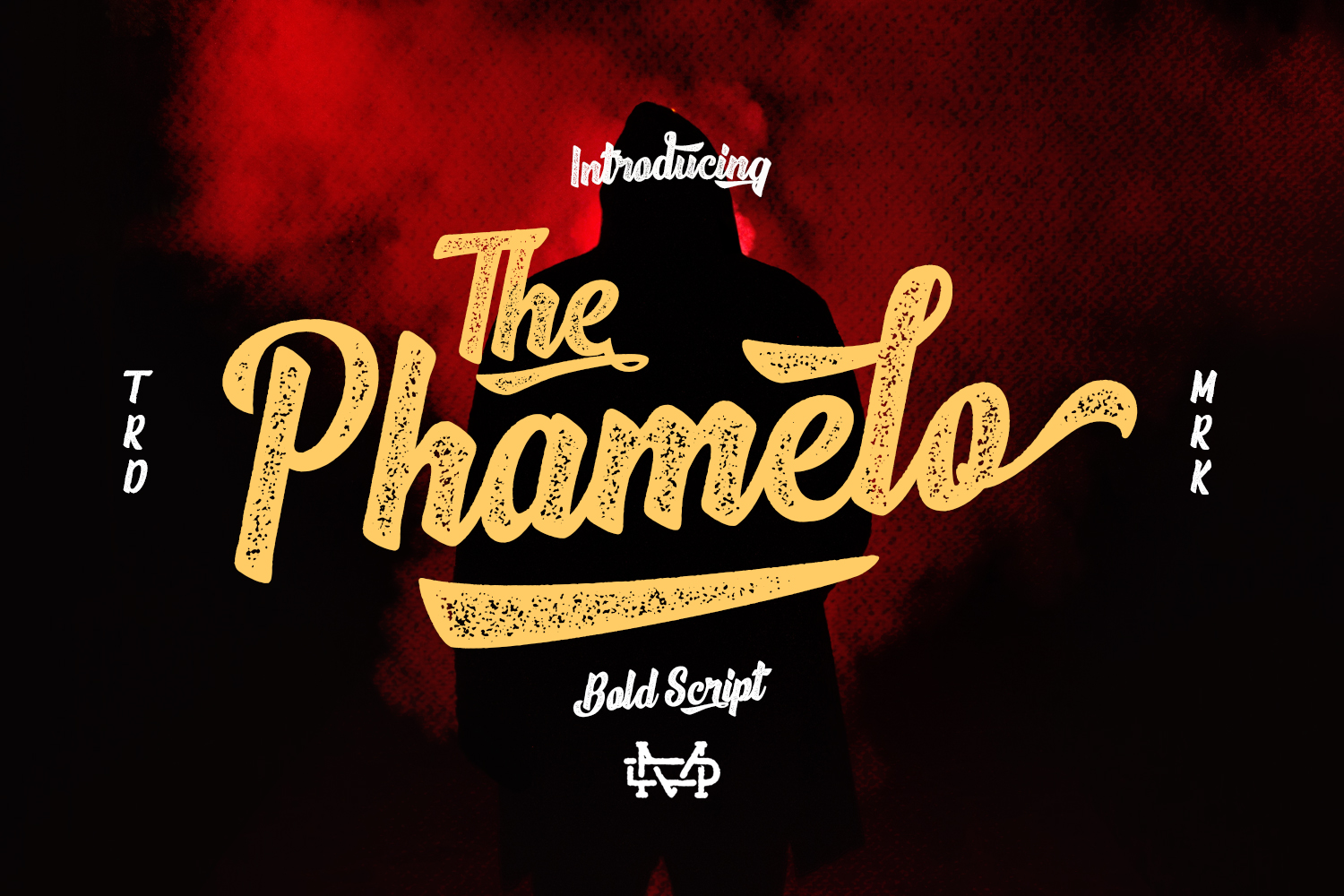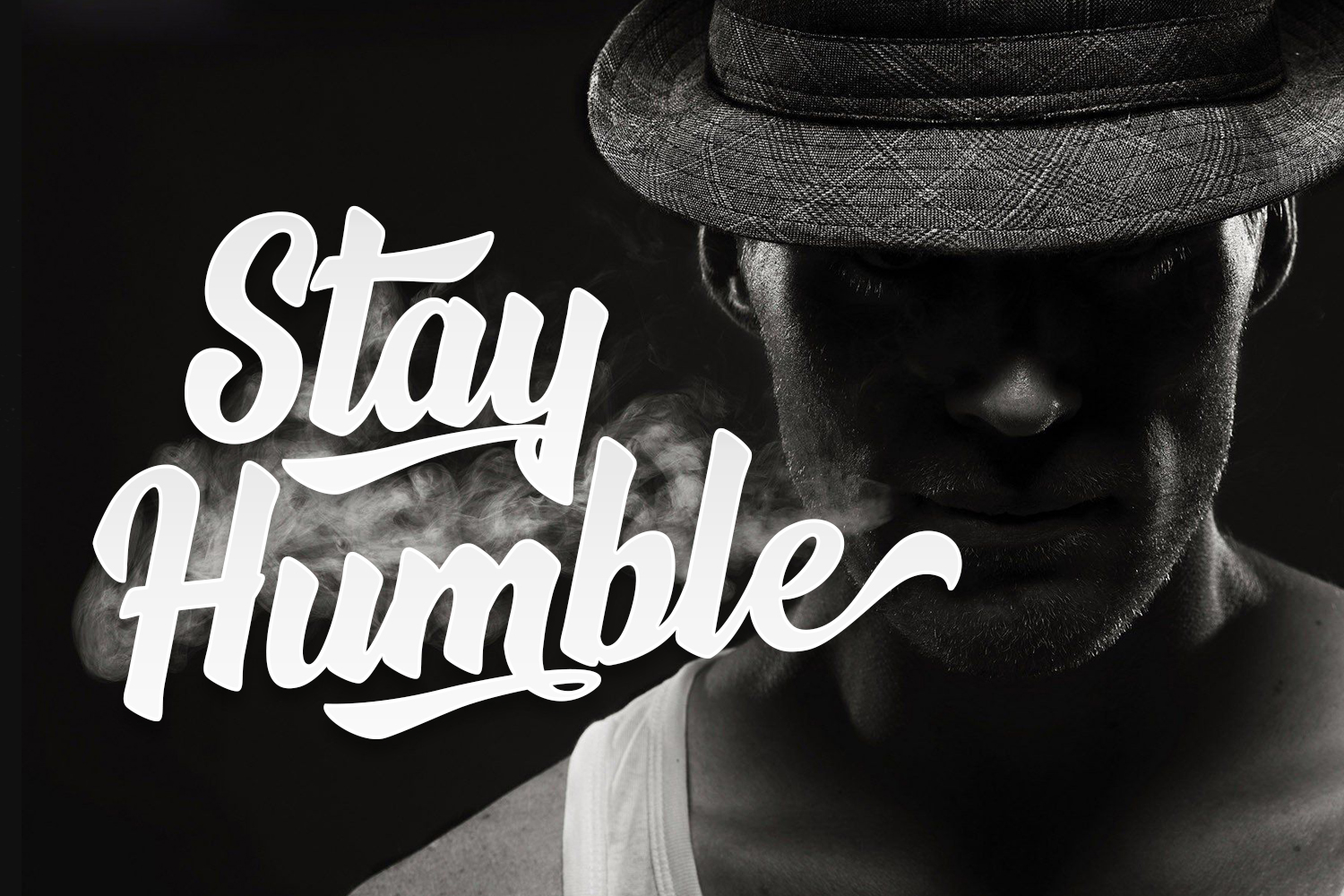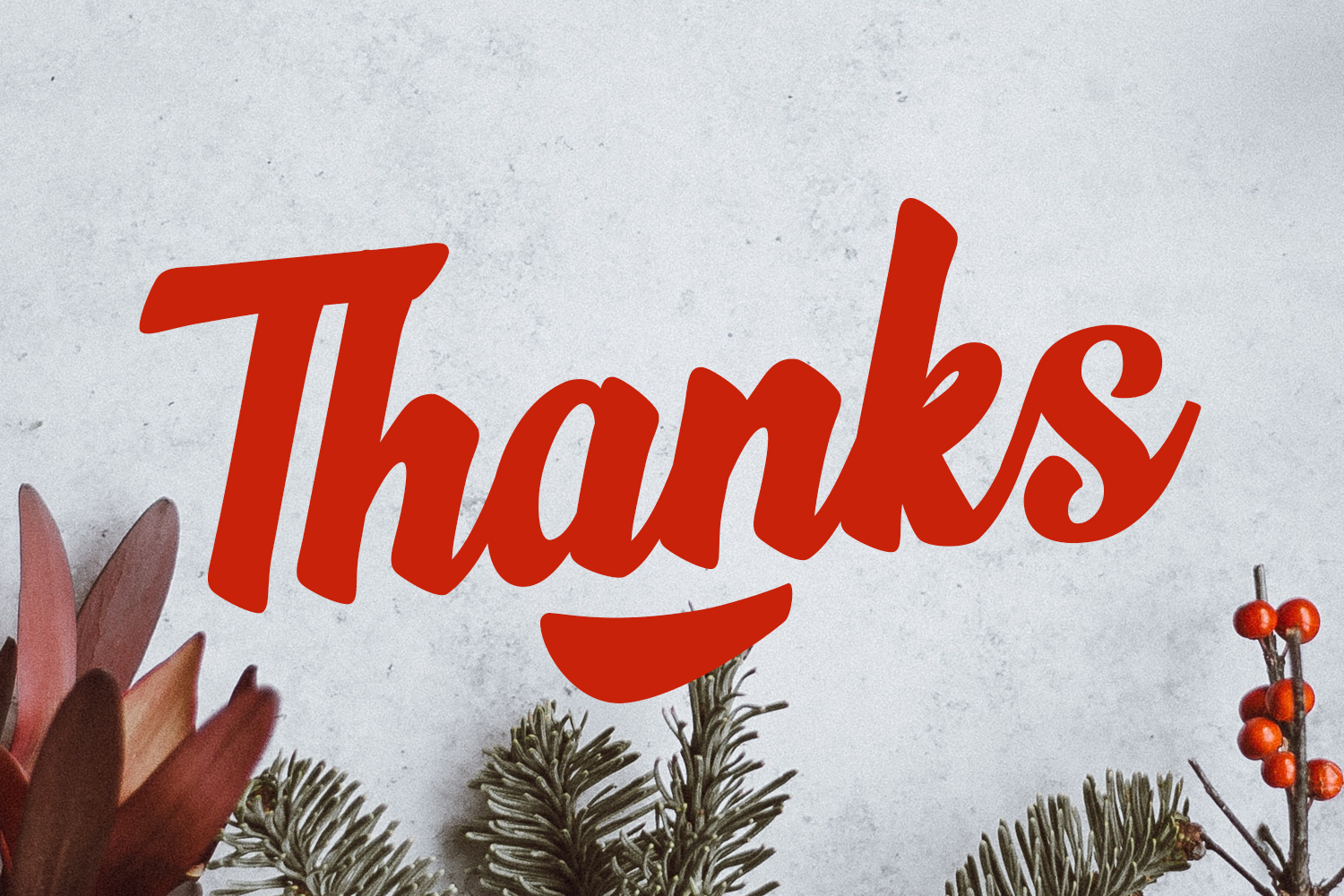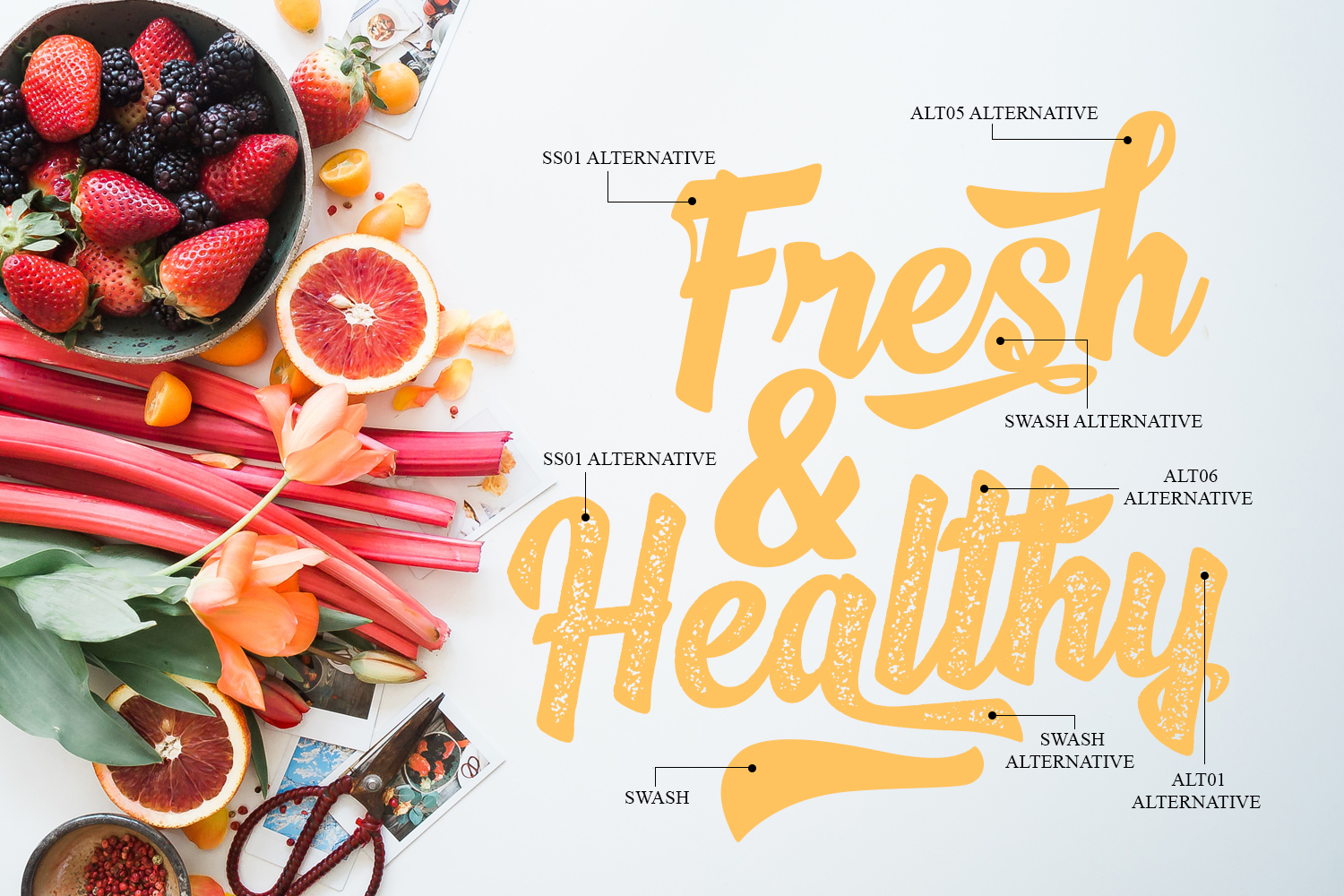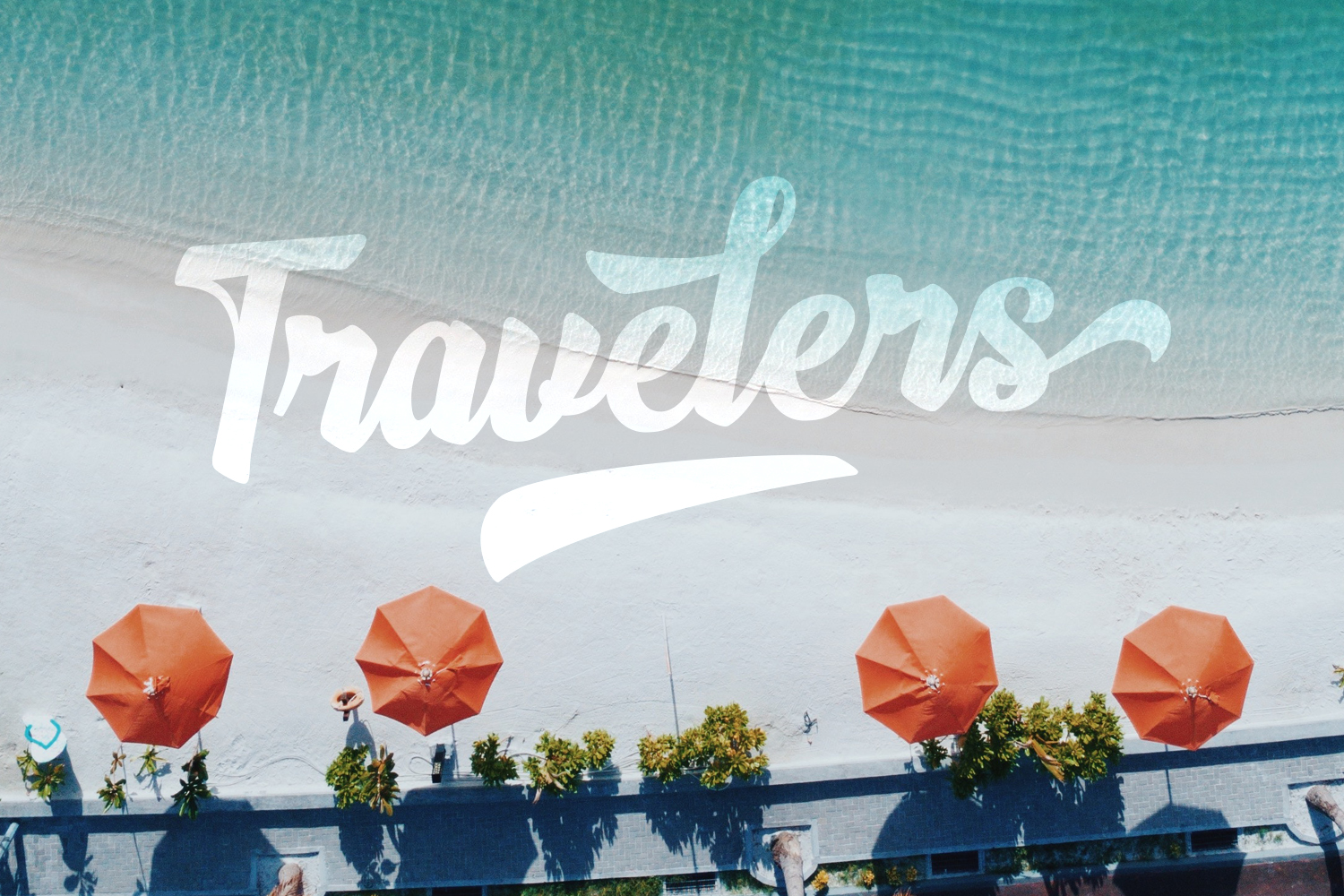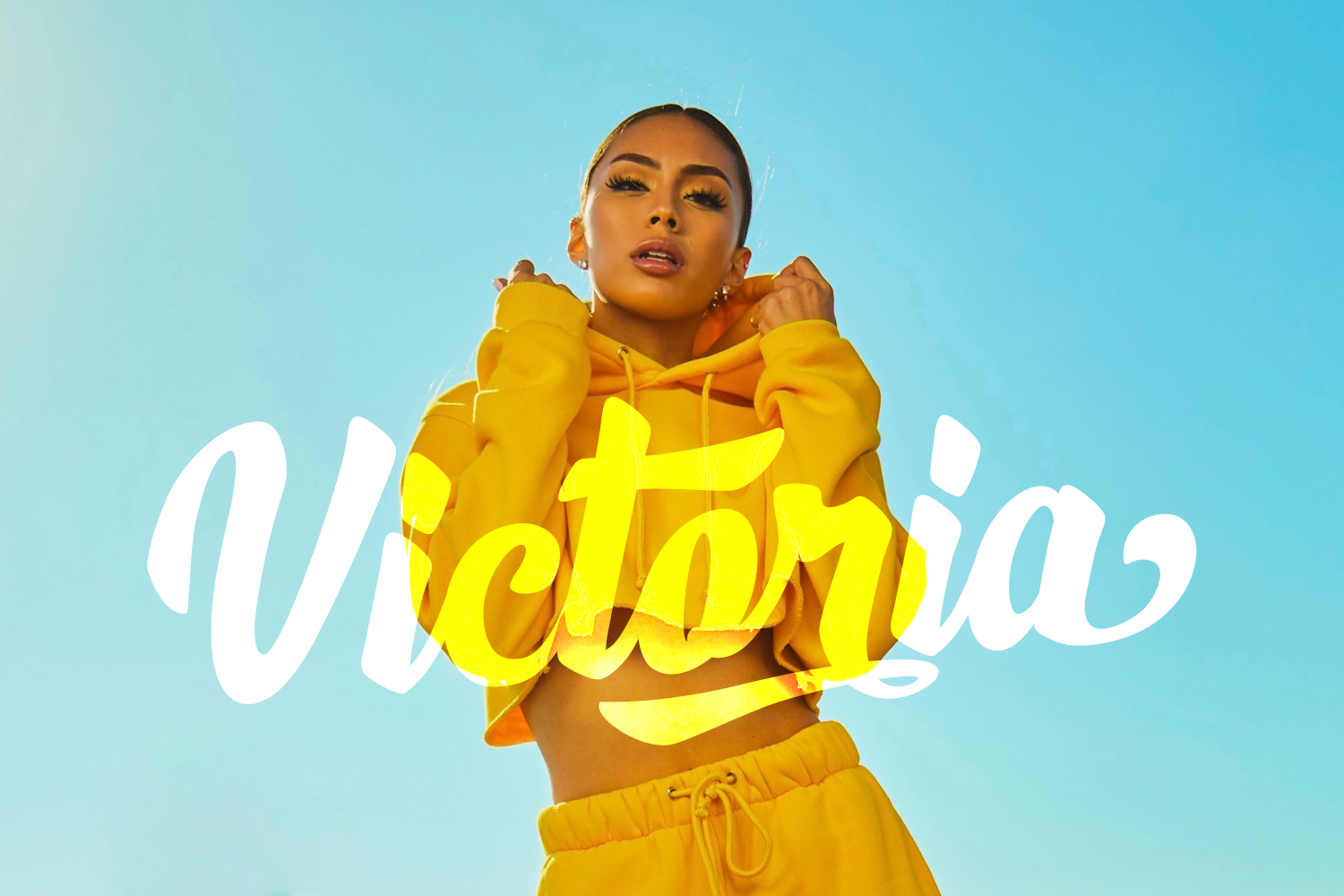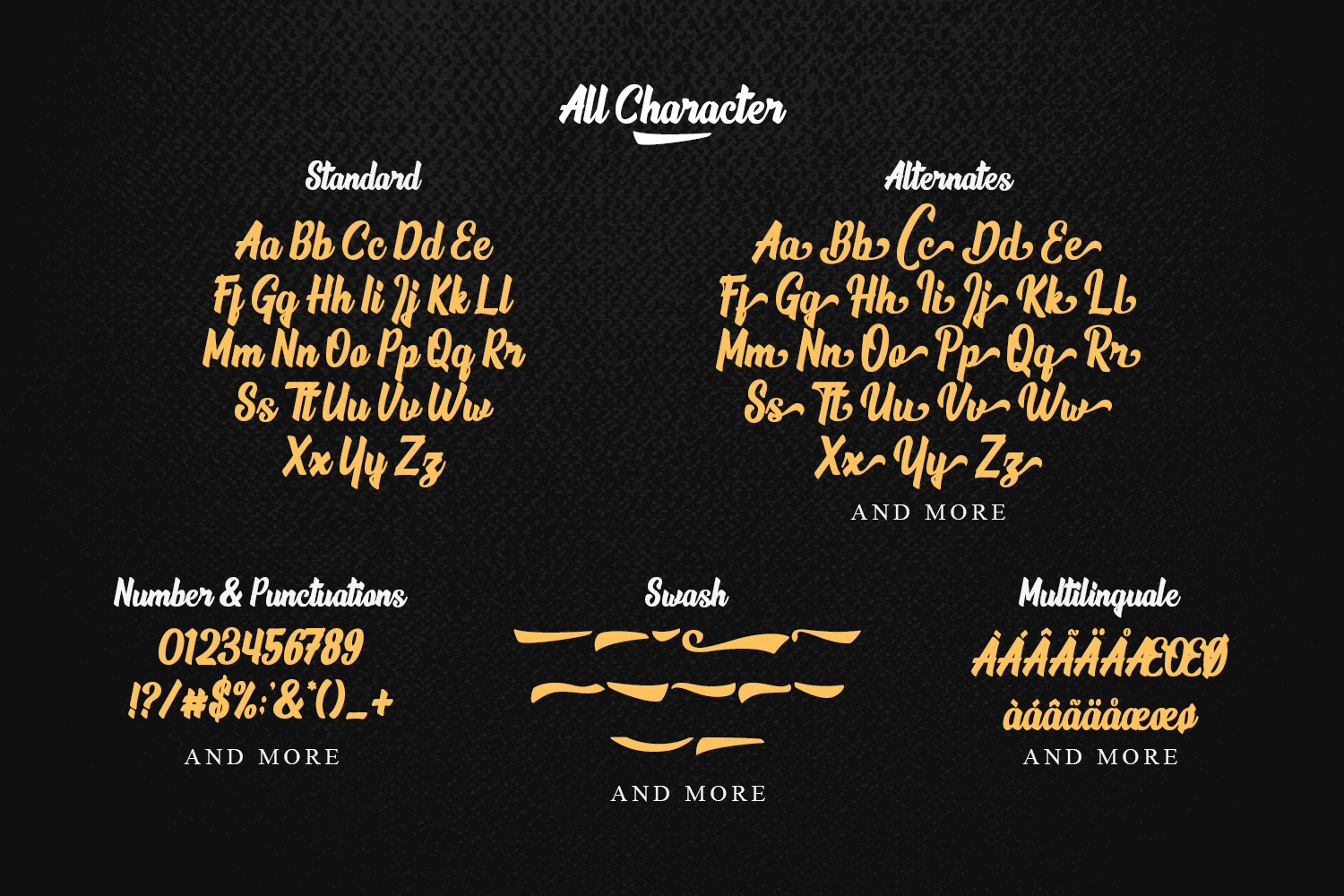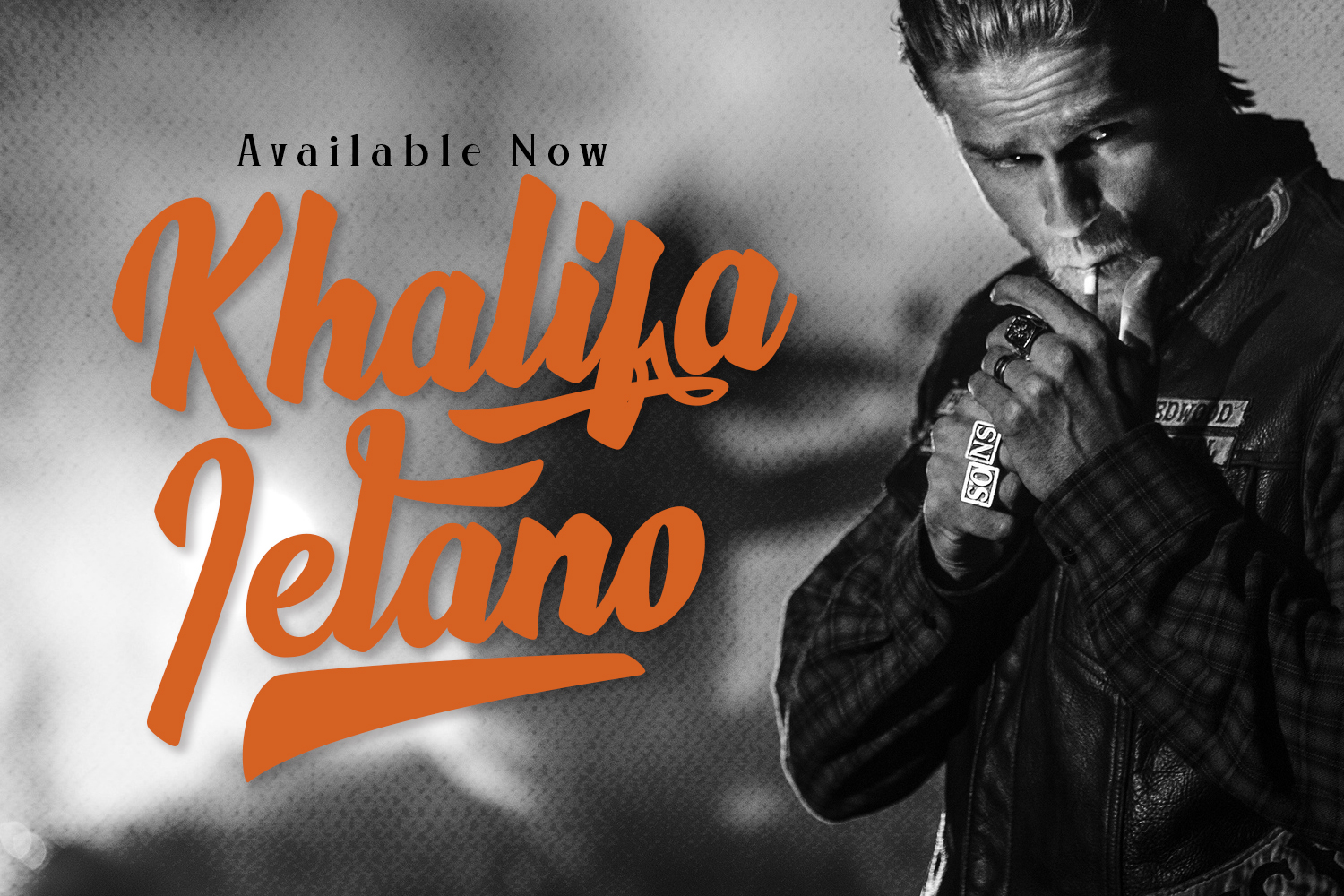
Phamelo Script
The Phamelo is a bold script comes with clean and rough version and this perfect for all your designs project, event and more.
• Uppercase & Lowercase
• Number & Symbol
• International Glyphs
• Alternative
• Swashes